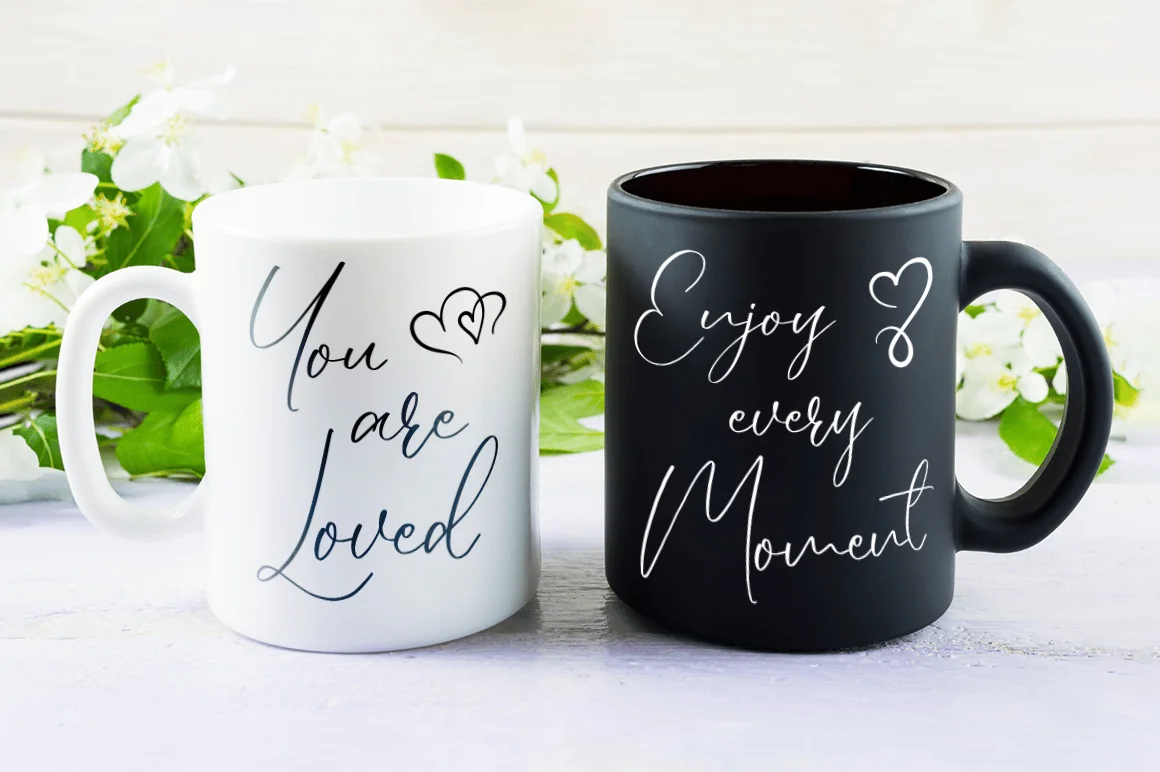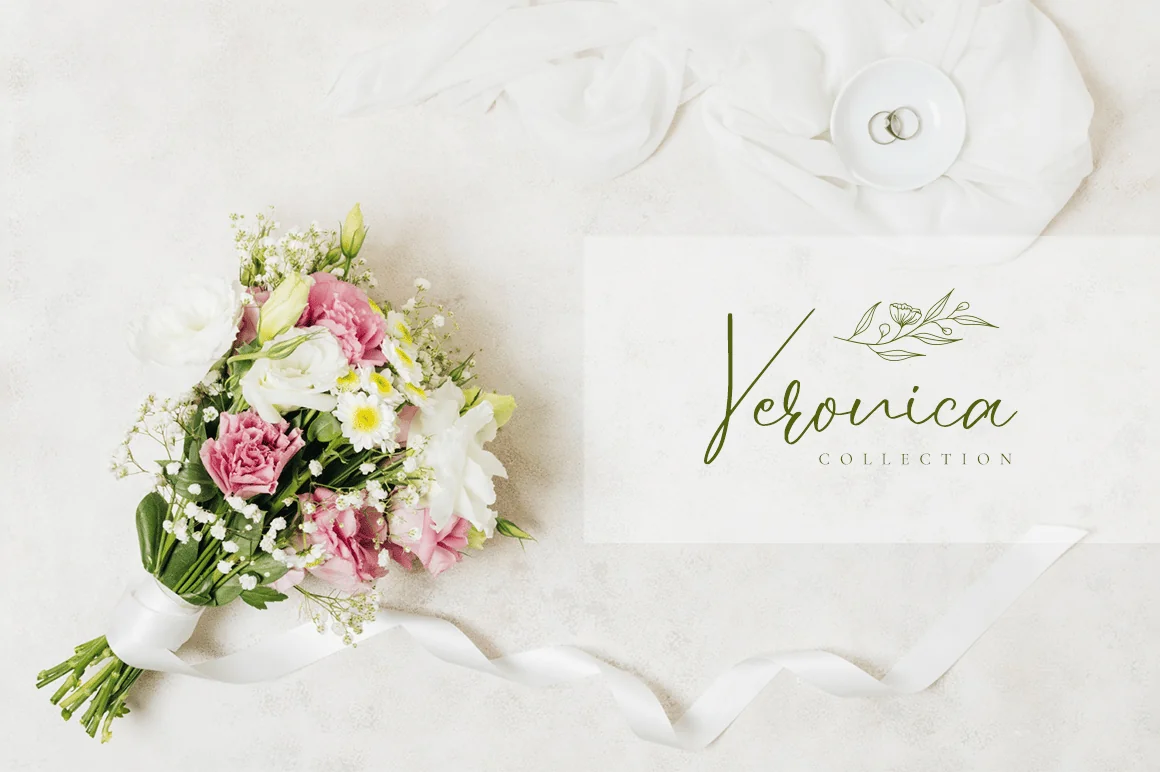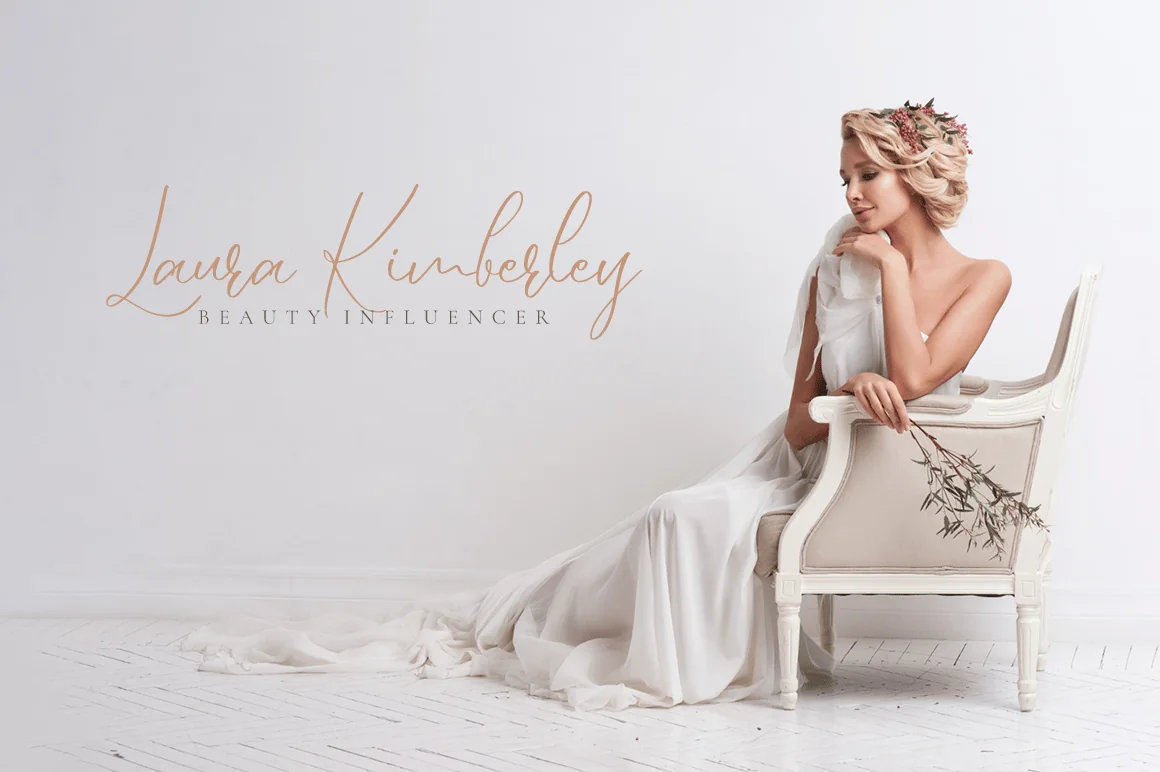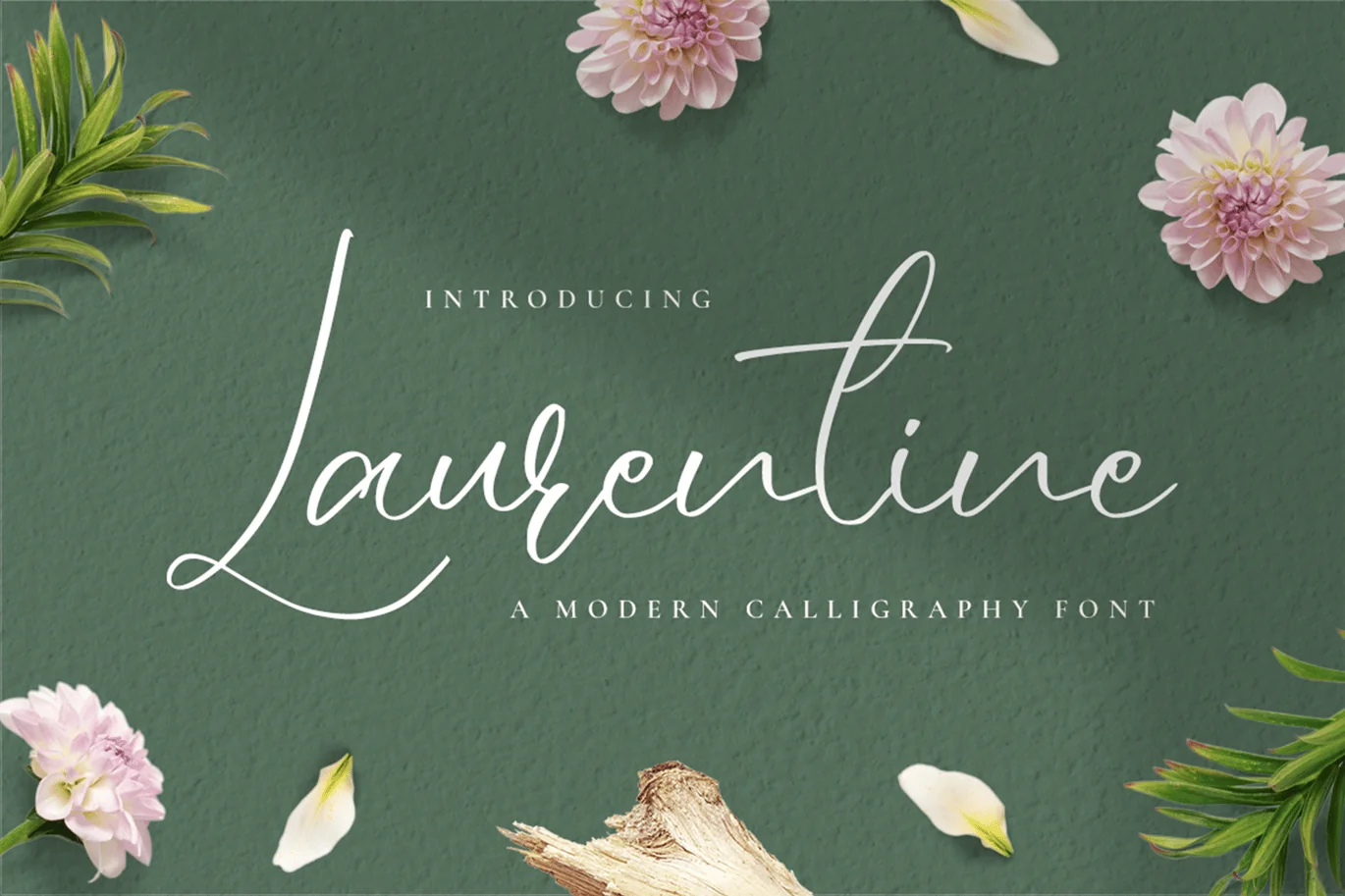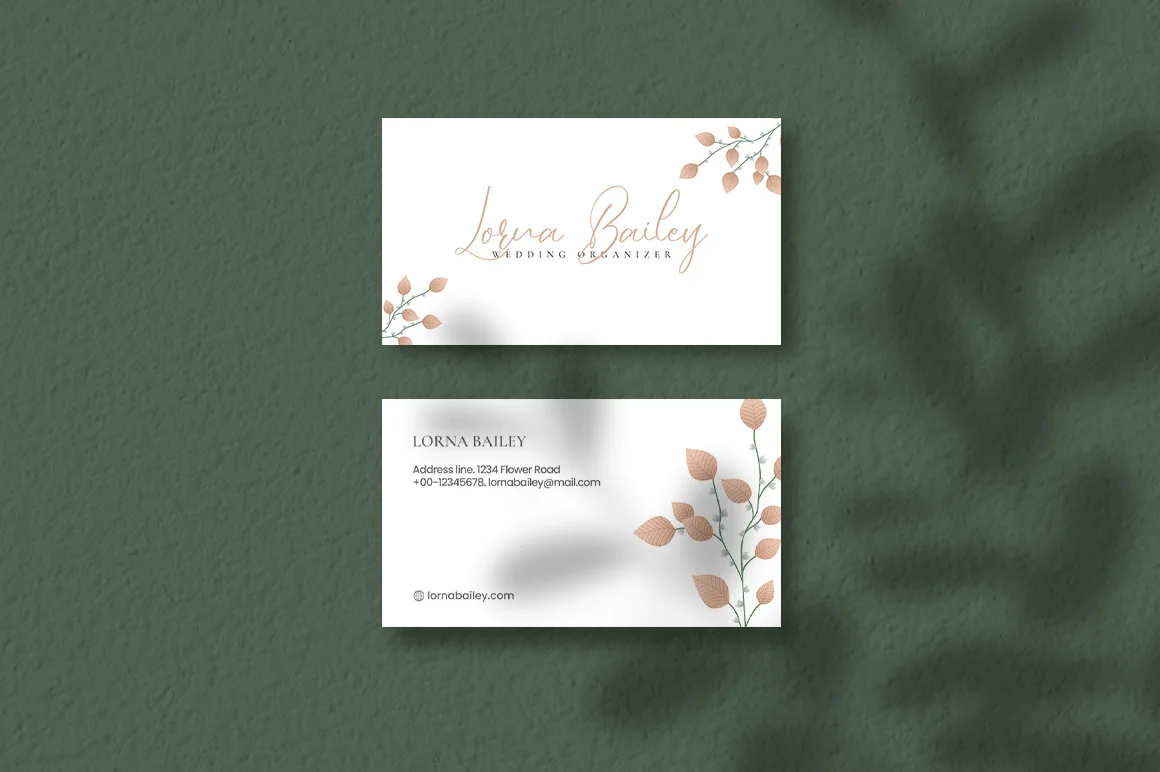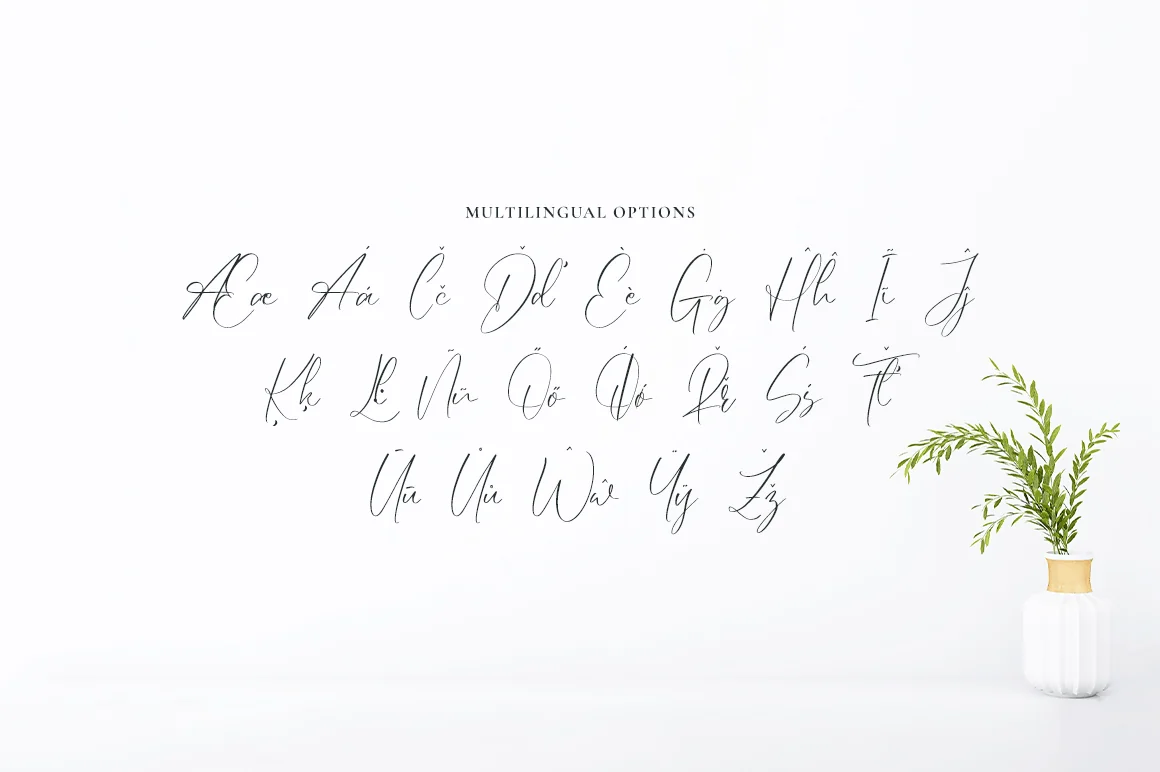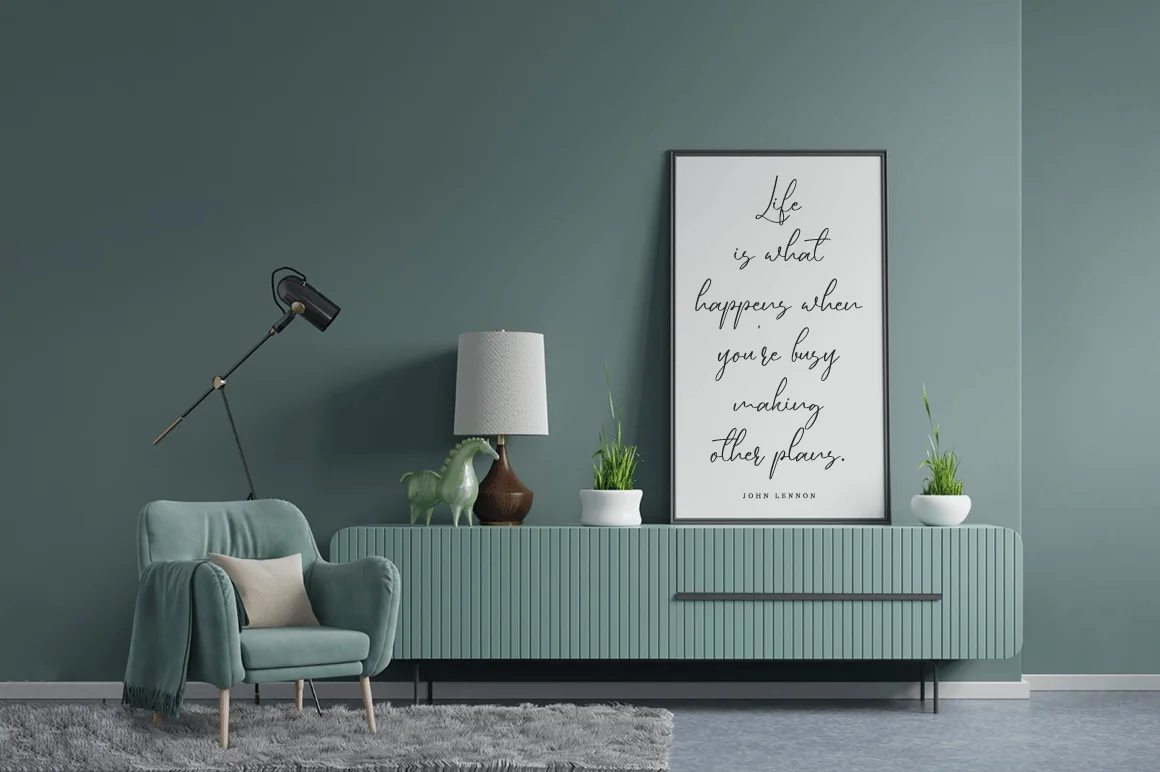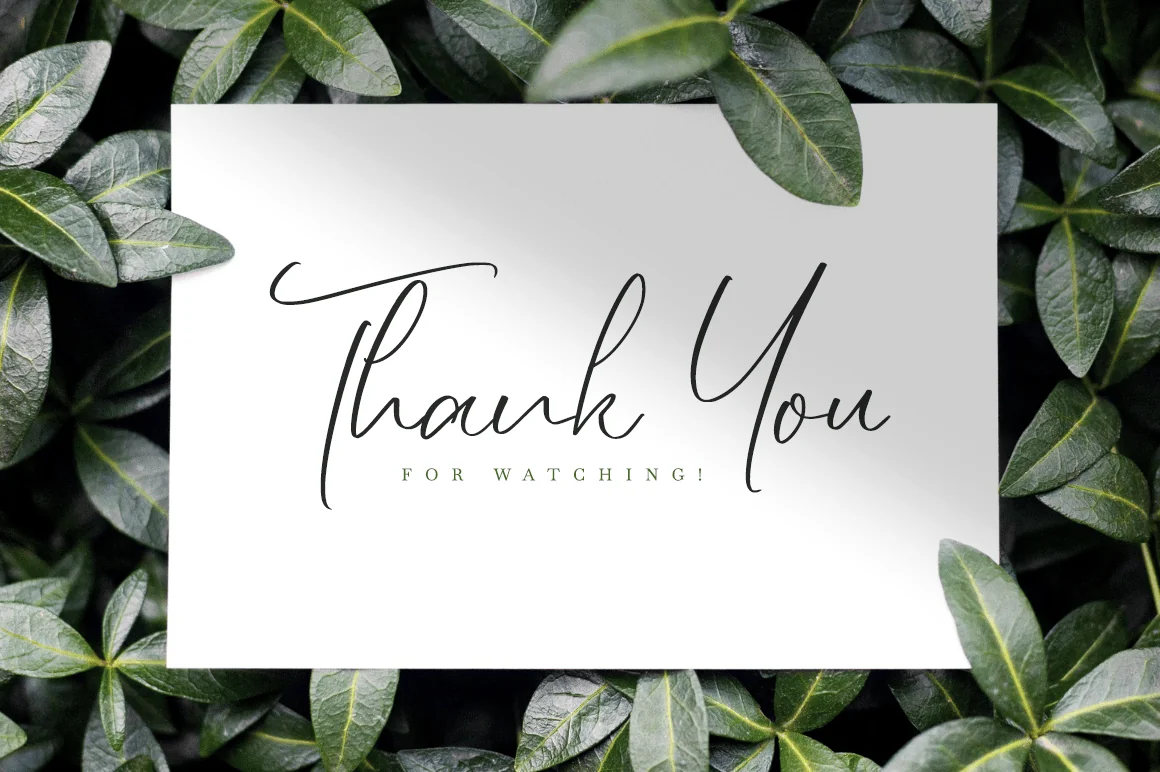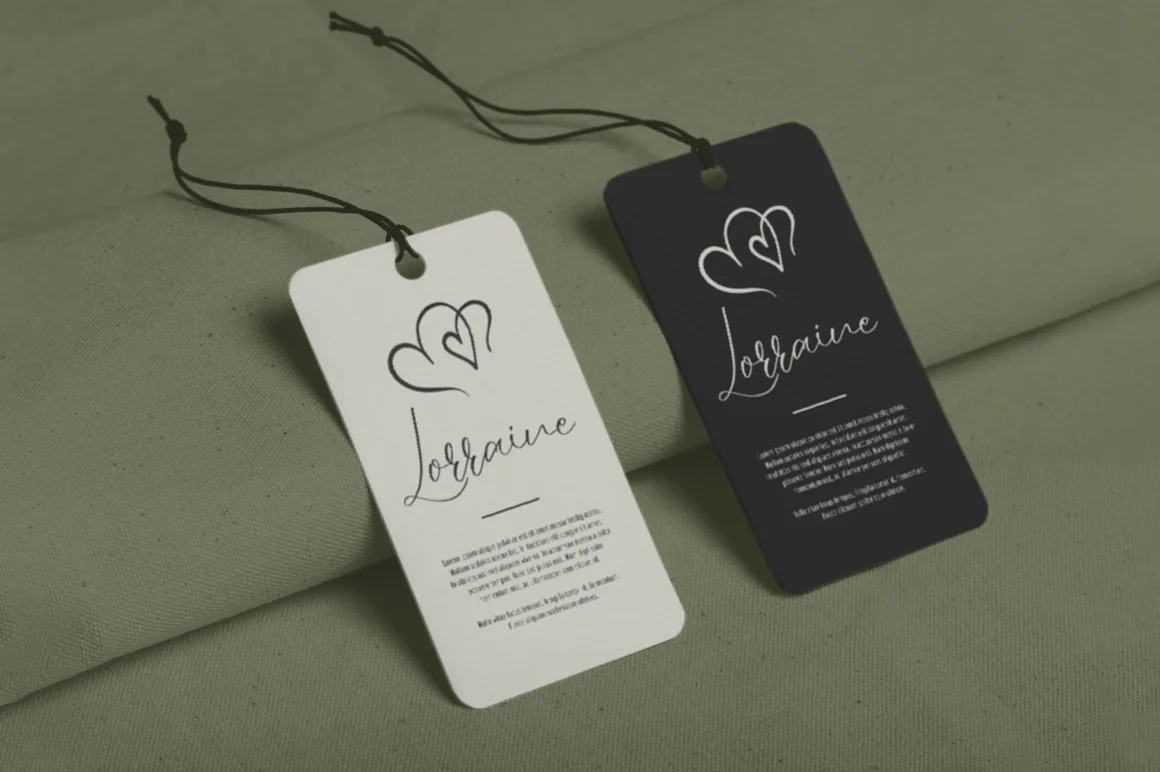
Laurentine – Elegant Wedding Font
Laurentine is an exquisite handwritten font, masterfully designed to become a true favorite. It maintains its classy calligraphic influences while feeling contemporary and fresh.